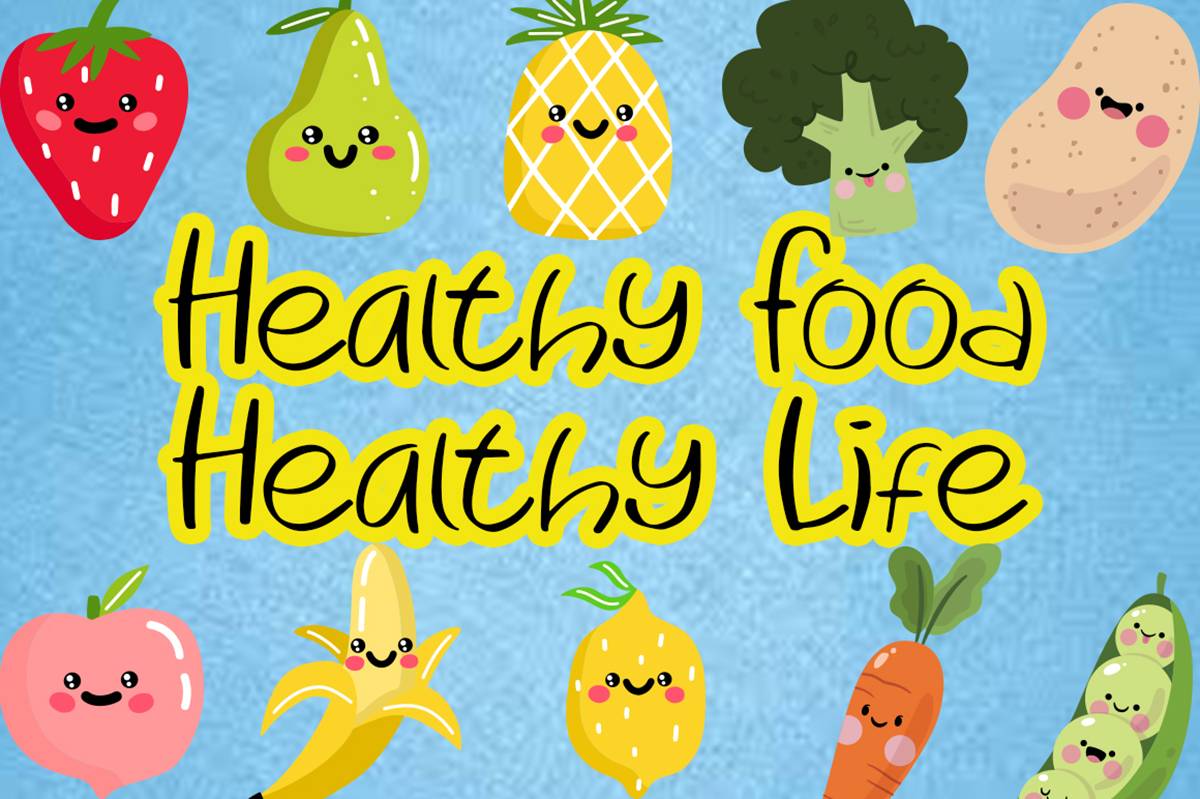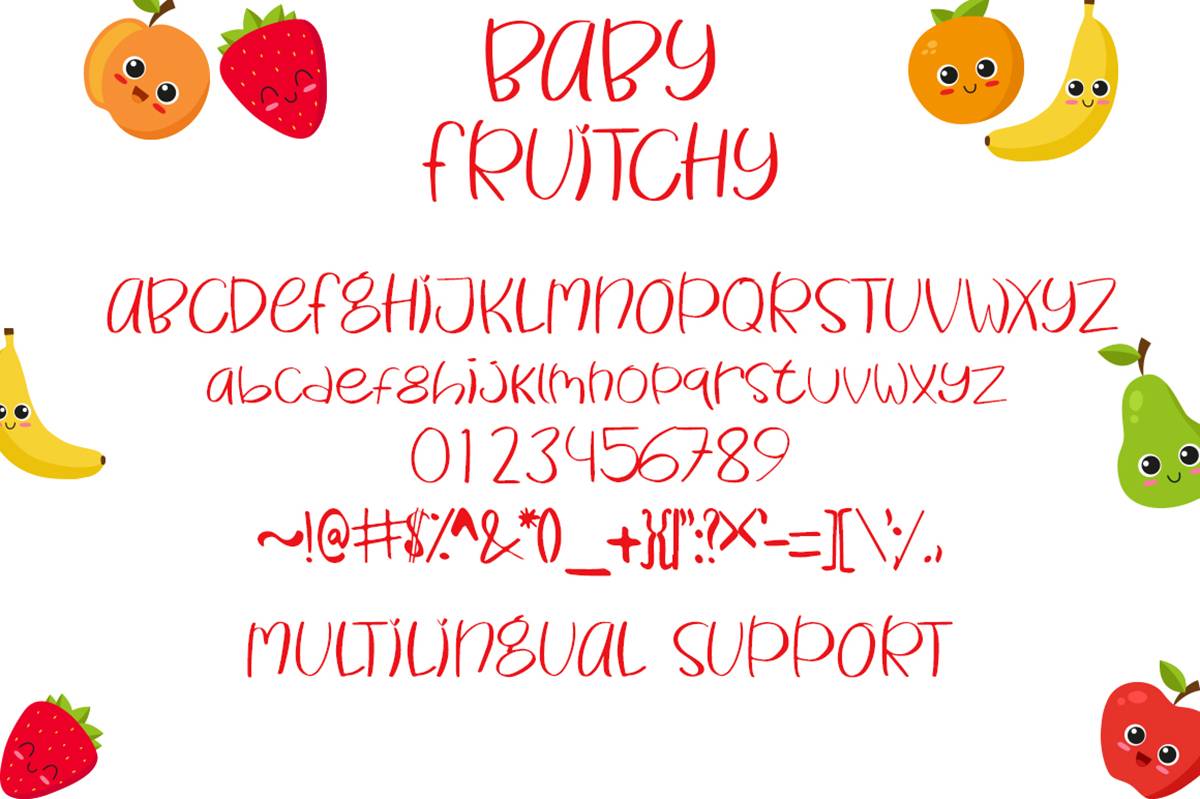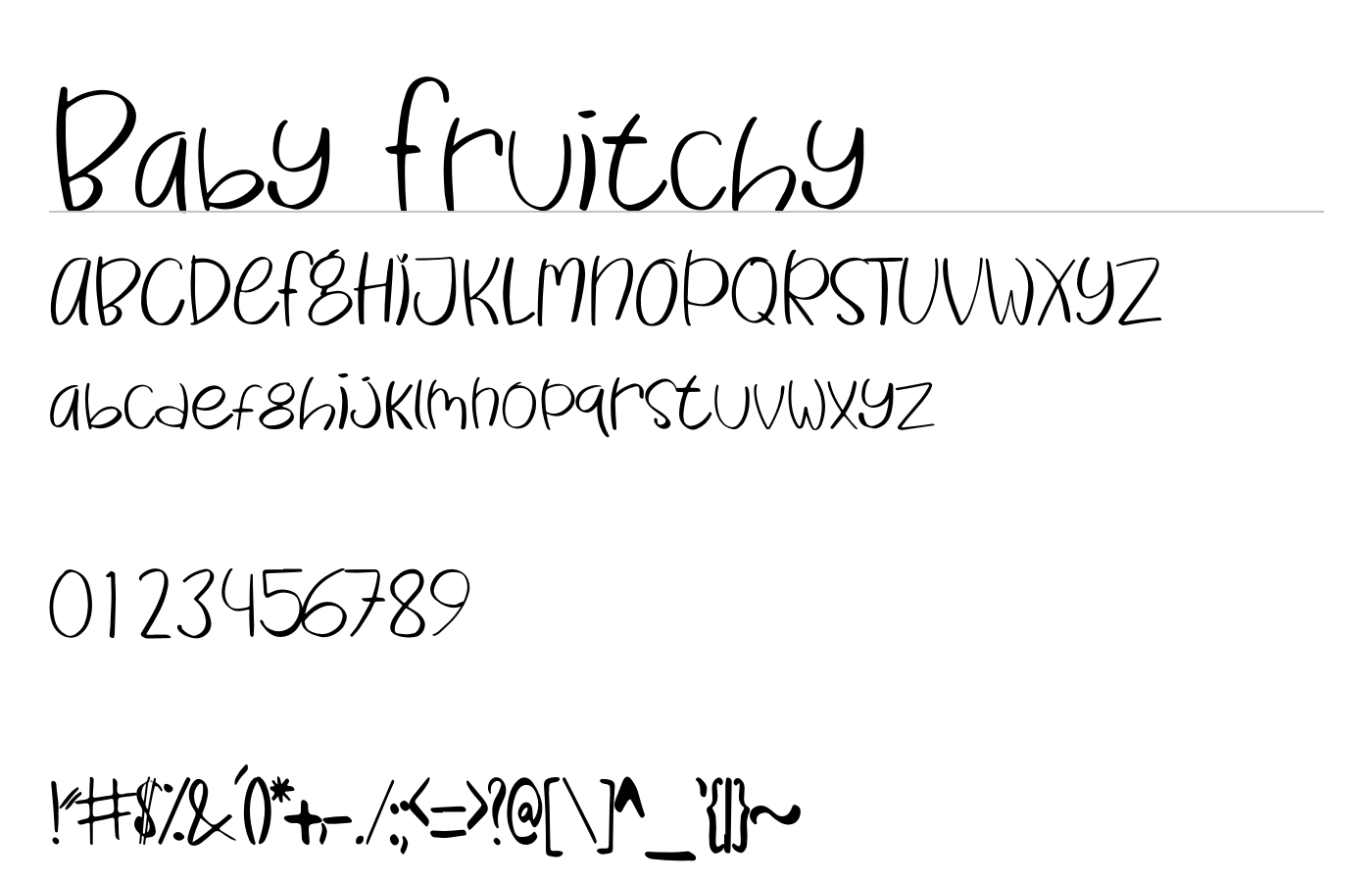
Baby Fruitchy is a playful, hand-drawn sans serif font with a casual, organic feel that evokes warmth and creativity. Its tall, narrow letterforms, uneven strokes, and whimsical curves make it ideal for fun and informal designs such as children’s products, invitations, and creative branding. This font works best in headlines and display uses where a friendly, approachable personality is desired.
Baby Fruitchy Font
About Baby Fruitchy Font
| Font family | Baby Fruitchy Font |
| Designer | Fajar Wicaksono |
| Trademark | Booga Letter Studio |